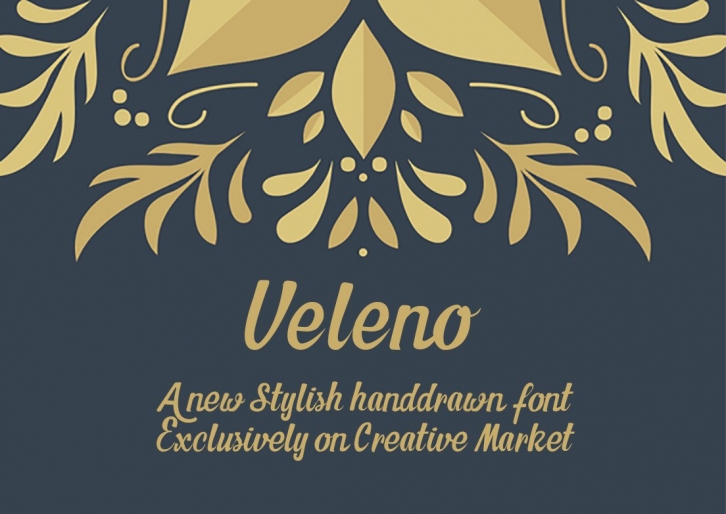
This handrawn font is perfect for various applications, birthday invites, Poster design or whatever you want!
It looks like real handlettering because it has tiny imperfections which make it look like it was drawn by hand!